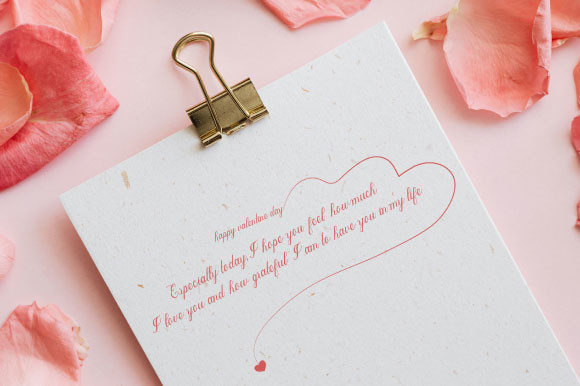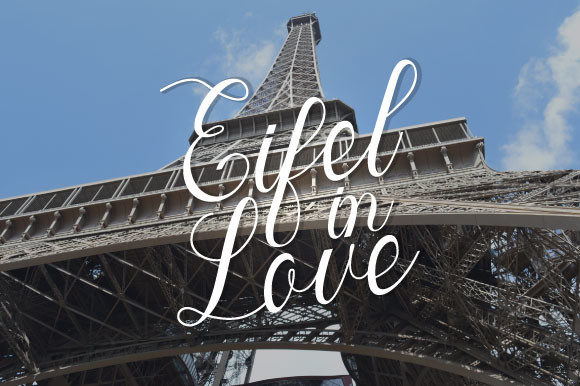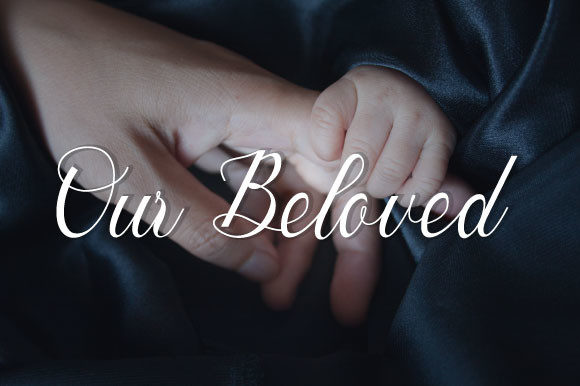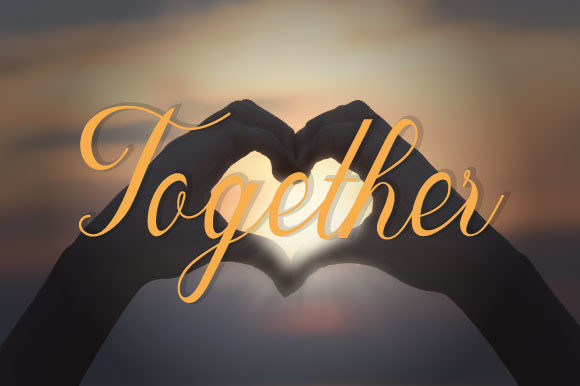
Zalentine Script Font
About Zalentine Script Font
Zalentine Script is a romantic and sweet calligraphic typeface with characters dancing along the baseline. It has a casual, yet elegant touch. This font was created to meet your valentine card design needs, greeting cards, wedding invitations, love letters and much more.